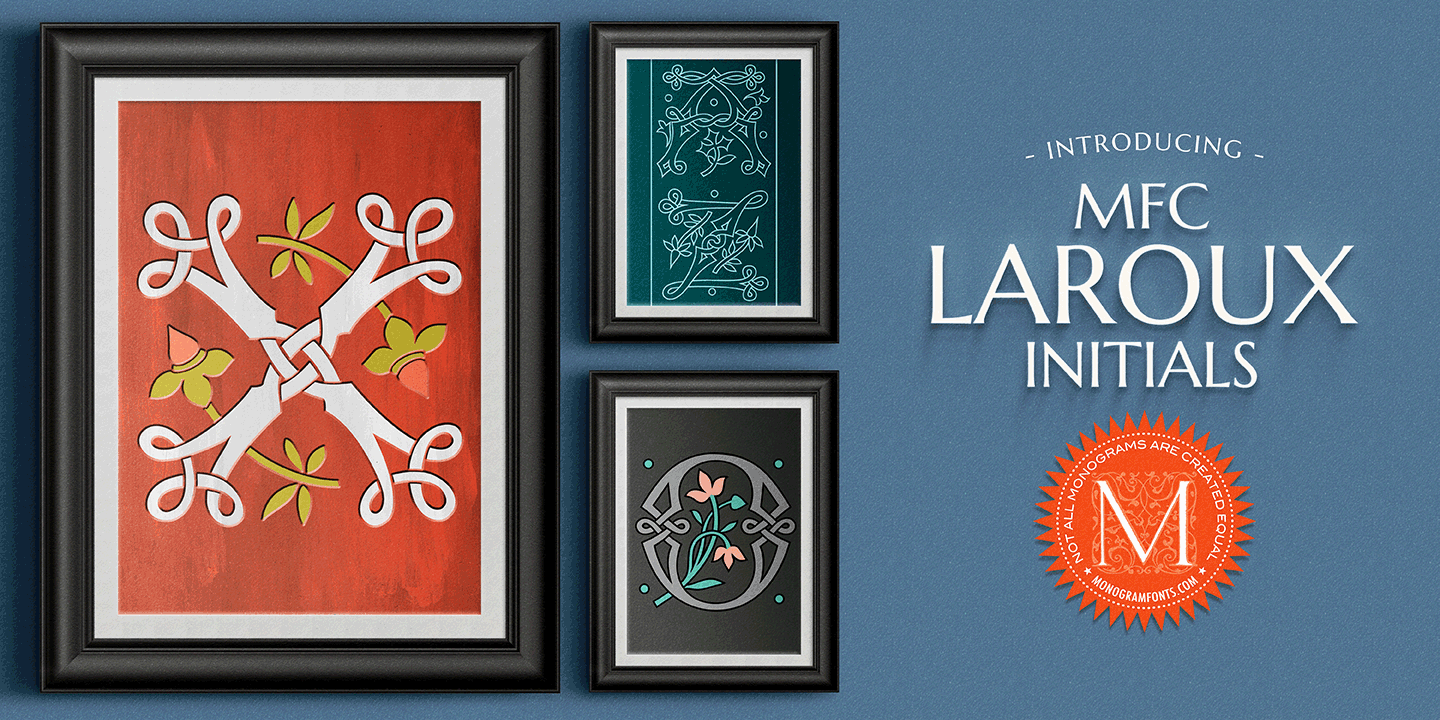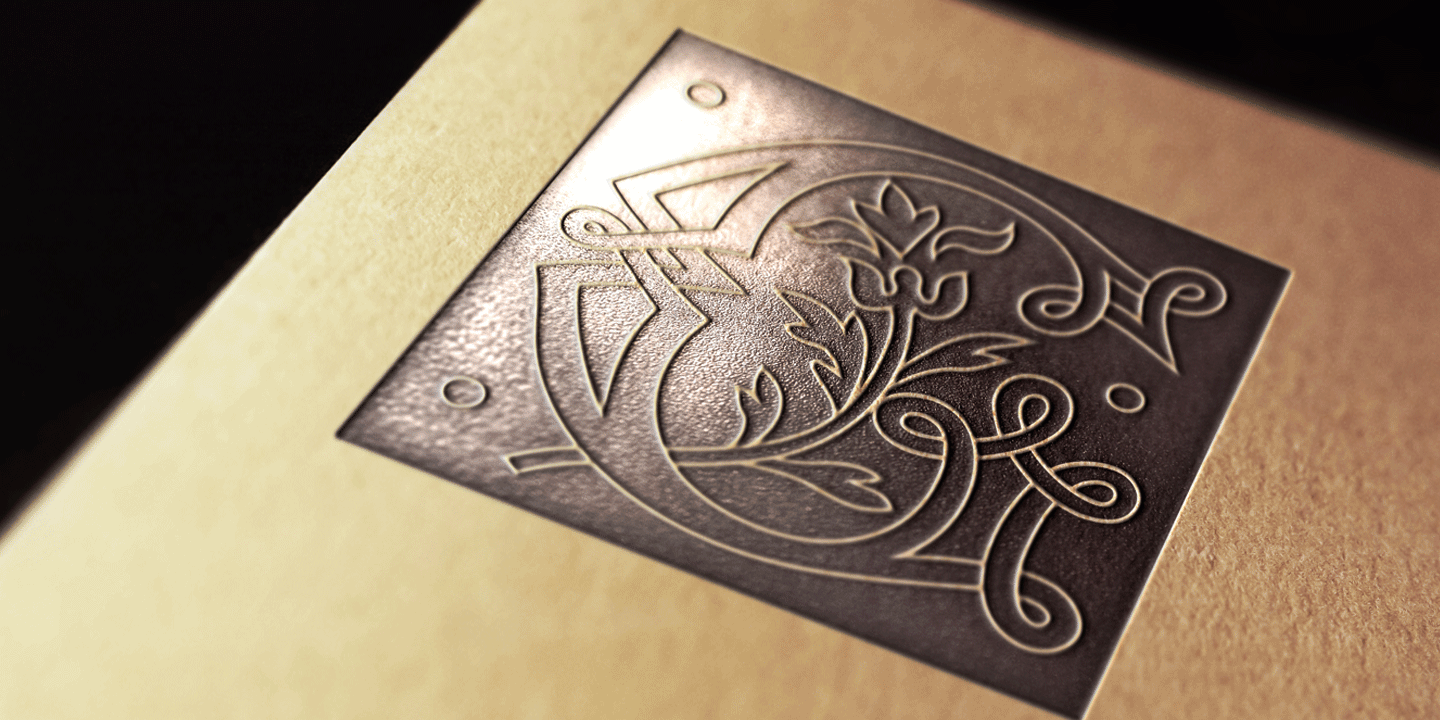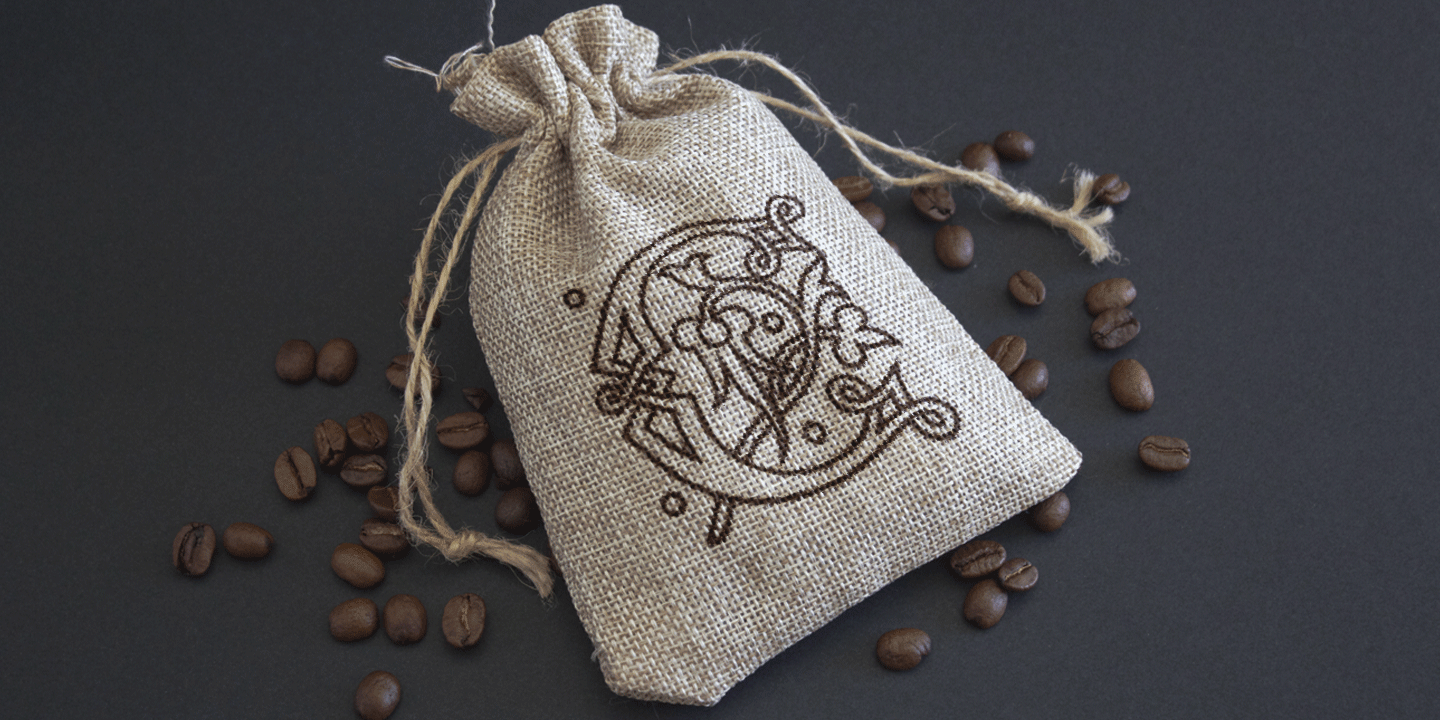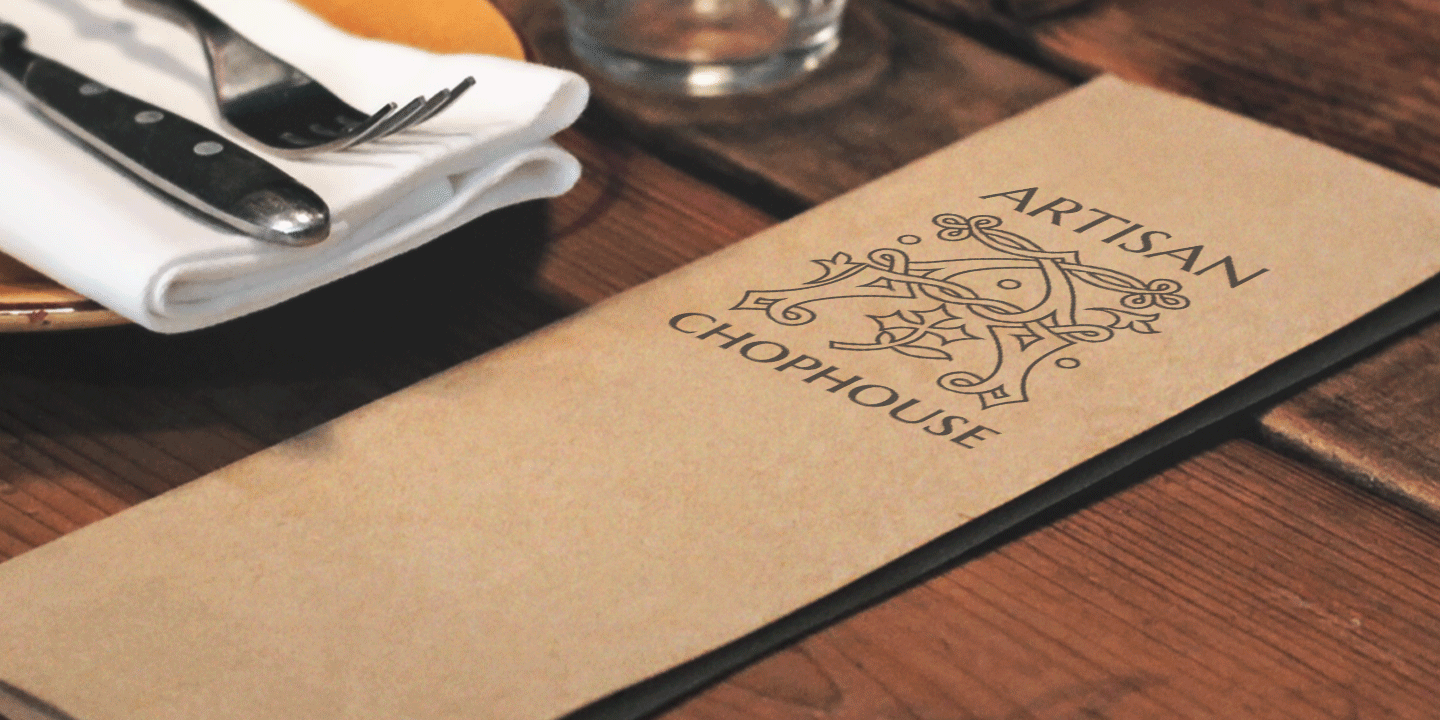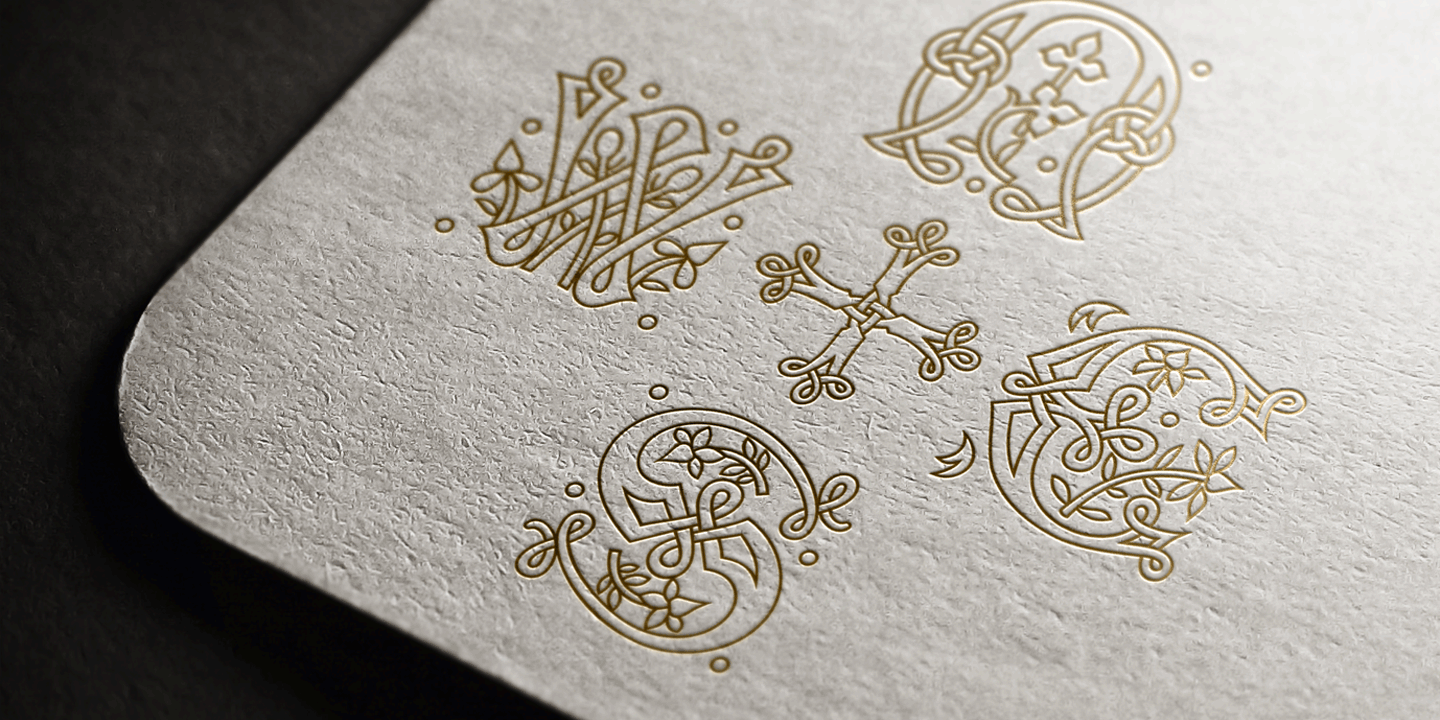
MFC Laroux Initials
The source of inspiration for Laroux Initials is an alphabet set from the book ?Monograms and Alphabets for Combination? by Dollfus, Mieg & Cie, first published in the 1880's. We've added cameo versions of all the glyphs and included some ornamental glyphs culled from the original design, all in order to offer more versatility with this initials-style monogram. We've extended the family by including a Solid version of the Initials font as well as a Flowers font for additional colorizing possibilities. Experiment with all of these in different combinations.